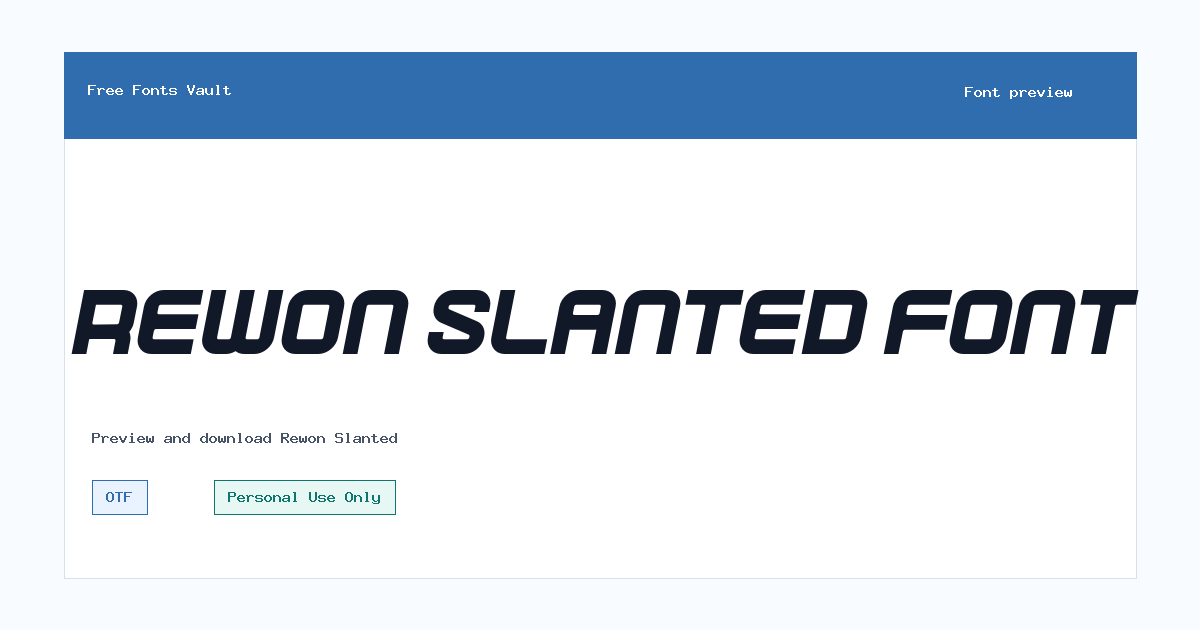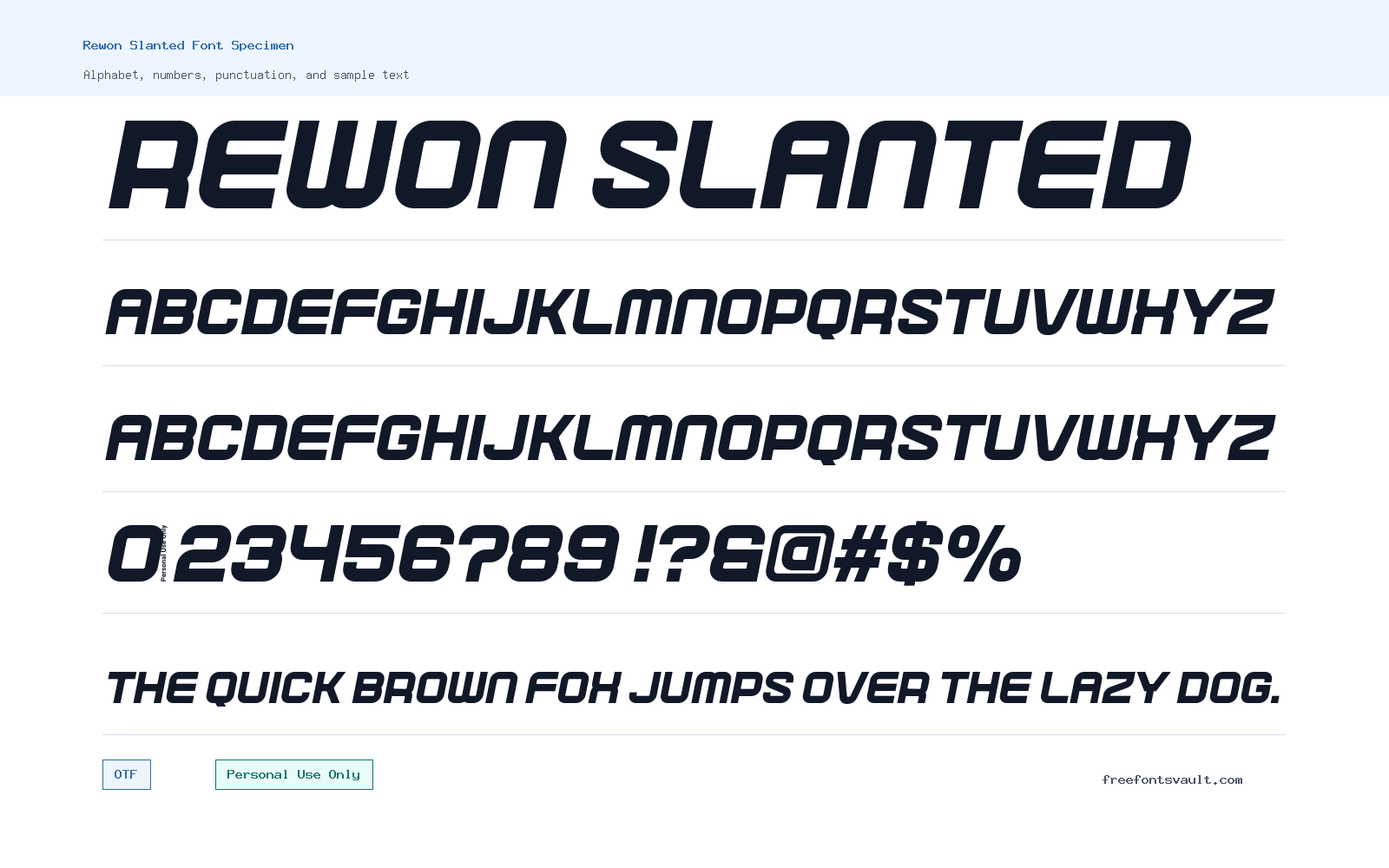
Rewon Slanted
- Designer Zidan Zamzani
Rewon Slanted font.
Rewon Slanted is a display font for short, attention-focused text. It is best approached as a personal-use type choice for testing logo ideas, poster headings, social graphics, and bold layout experiments.
About Rewon Slanted
Rewon Slanted is listed as a font by Zidan Zamzani and comes in an OTF file format. The name points to a slanted style, so it is most useful when you want text that feels angled, active, or more expressive than a plain upright typeface. Because there is one regular variant with a 400 weight, it is a straightforward font to test in previews: type a brand name, a short headline, or a few words and check how the letters sit together before downloading. Fonts like this usually work better in display settings than in body copy, especially when the design relies on shape and direction for personality.
Use Rewon Slanted for compact text where the lettering can be the main visual element. It can suit personal logo drafts, poster titles, YouTube thumbnail text, mood boards, web mockups, packaging concepts, and presentation covers. Keep the text short and give the letters enough space to breathe. If you are testing it for a logo, try the exact wordmark in uppercase, lowercase, and title case, then check whether the slant makes the name feel too fast, too sharp, or just right. For posters and social graphics, pair it with a calm sans serif for captions, dates, prices, or longer information. Avoid using it for paragraphs, small mobile UI labels, or dense menu text unless your preview shows that it stays readable at the size you need.
- Slanted display style suited to short headlines, logo drafts, and visual mockups.
- Personal logo concepts and wordmark tests
- Poster titles, cover graphics, and social media headings
- Web design mockups where a slanted display face is needed
- Brand mood boards and non-commercial presentation visuals
Rewon Slanted is credited to Zidan Zamzani. No foundry name or designer website is listed with the font details.
Test the font with the real words you plan to use, not just sample text. Slanted display fonts can change the mood of a name quickly, so check spacing, readability, and balance at the exact size of your design. For clean layouts, pair it with a simple sans serif and let Rewon Slanted handle only the main title or logo-style text.
Who designed Rewon Slanted?
The font is credited to Zidan Zamzani.
What is Rewon Slanted best used for?
It is best for short display text such as personal logo concepts, poster headings, cover designs, social graphics, and web mockups.
Does Rewon Slanted work for body text?
It is better suited to short text. For paragraphs, captions, or interface text, pair it with a more neutral font that stays readable at small sizes.